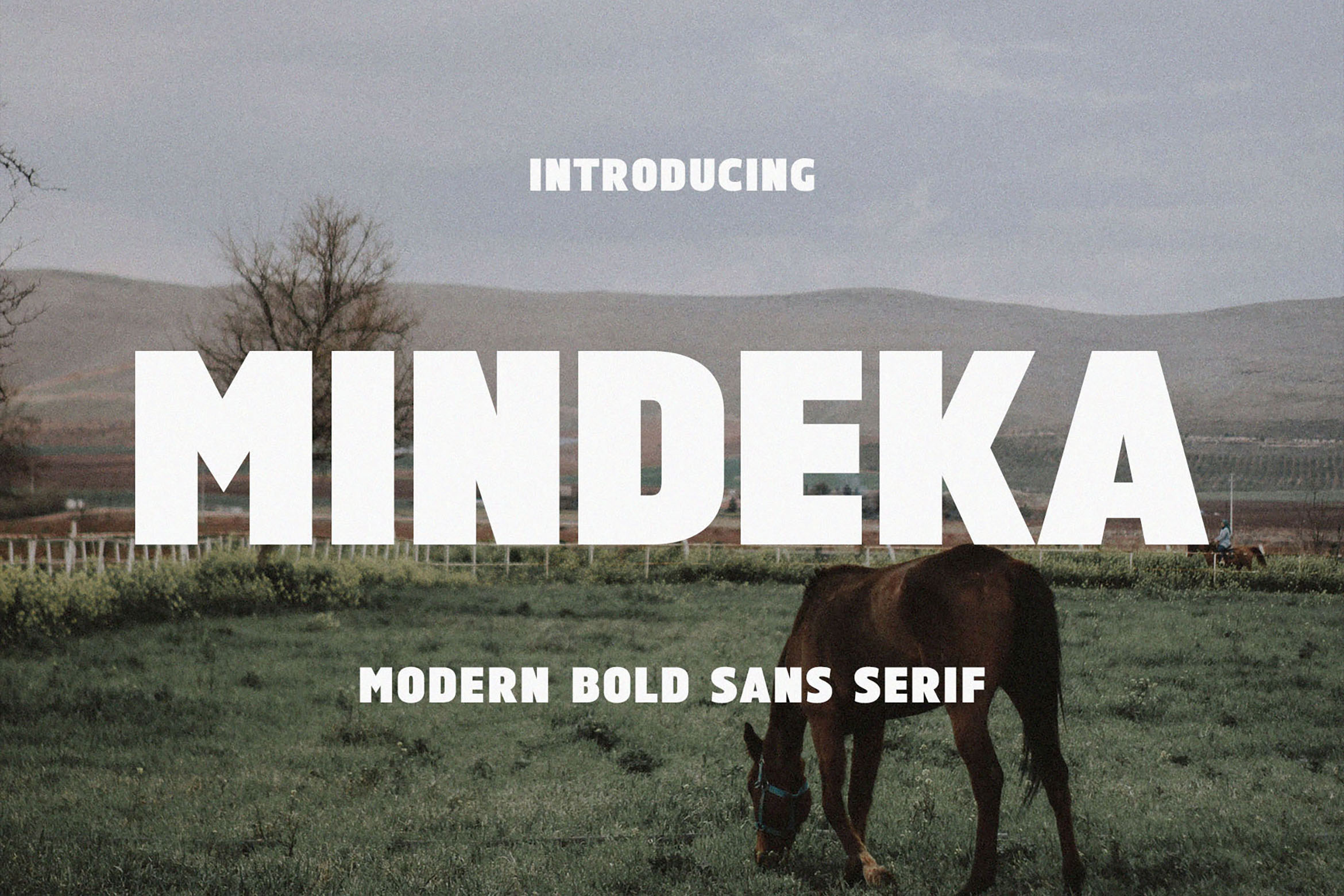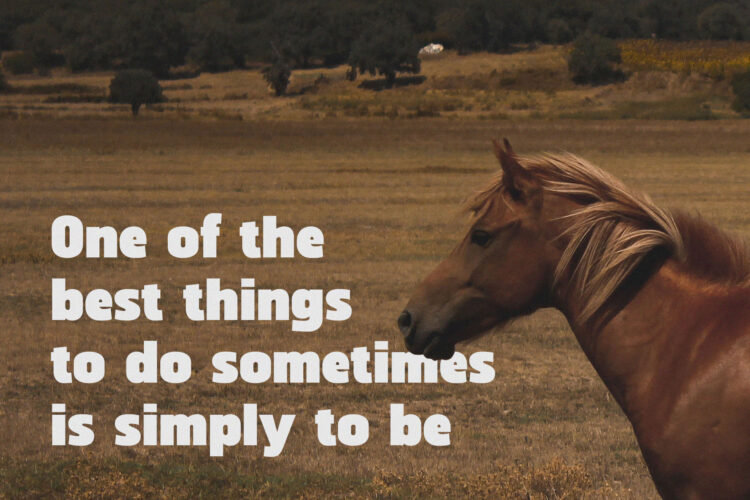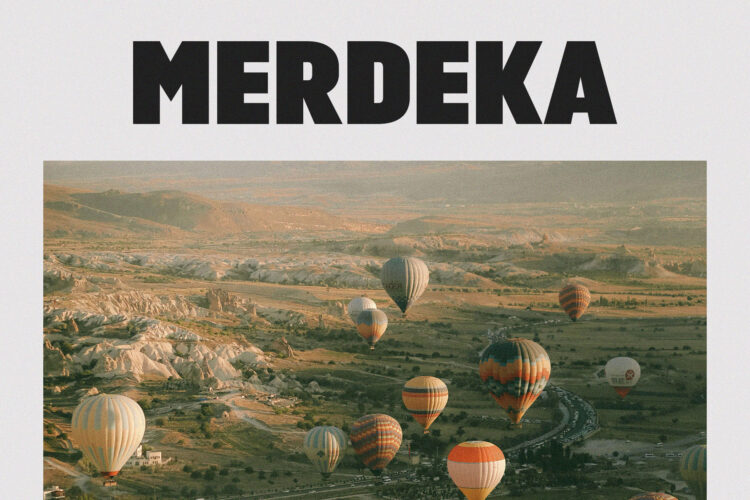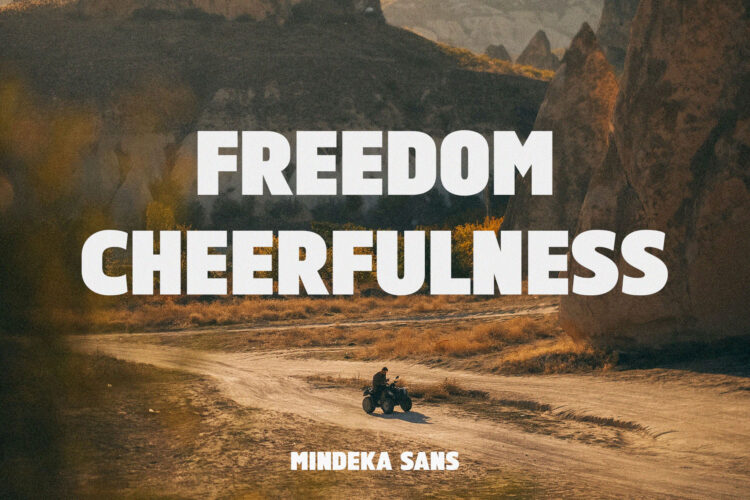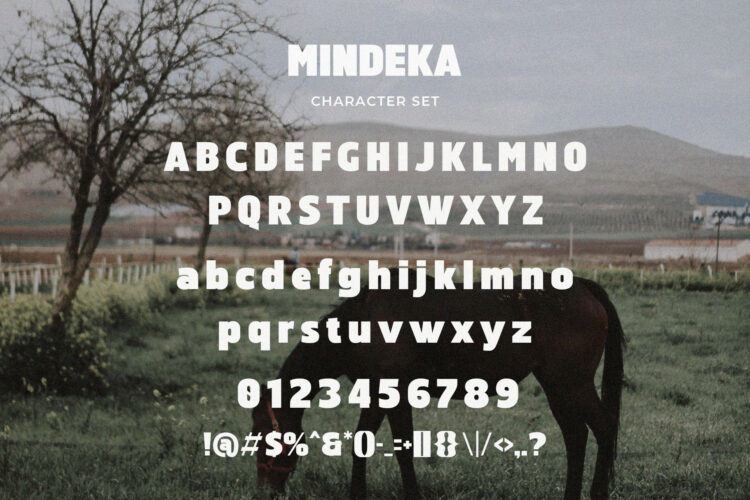
Introducing our new Mindeka, modern sans serif font with elegant style this is perfect for branding, logos, invitation, magazines, product packaging and more.
Mindeka – Ultra Bold Sans Serif